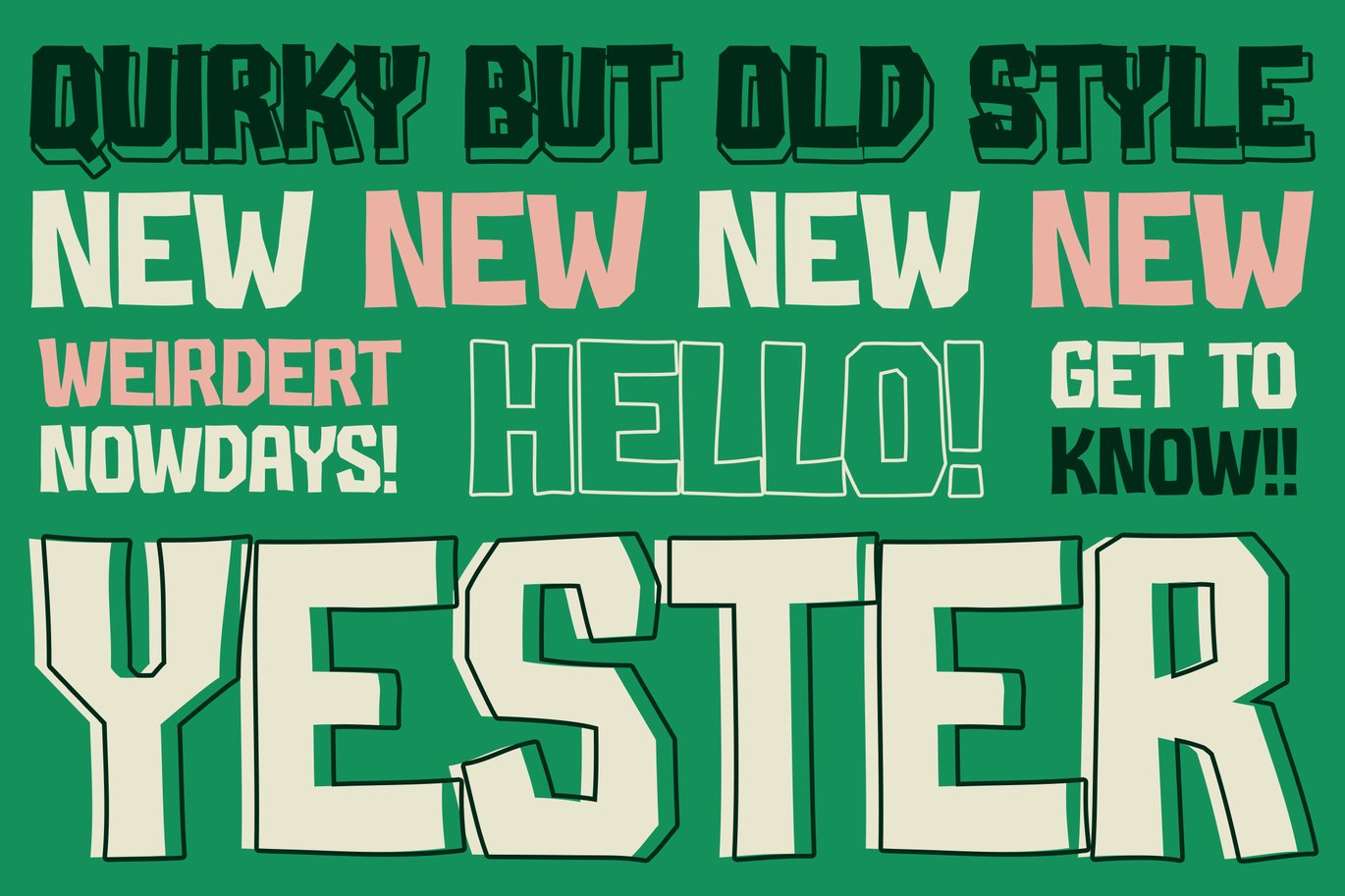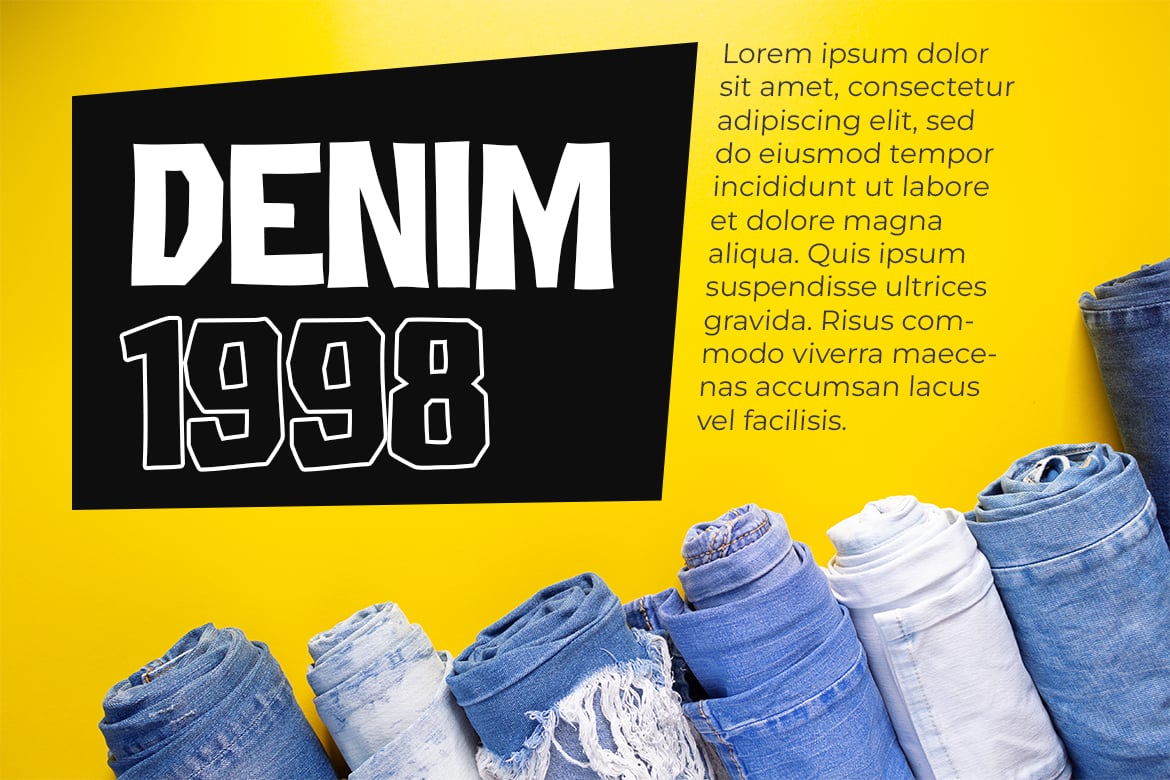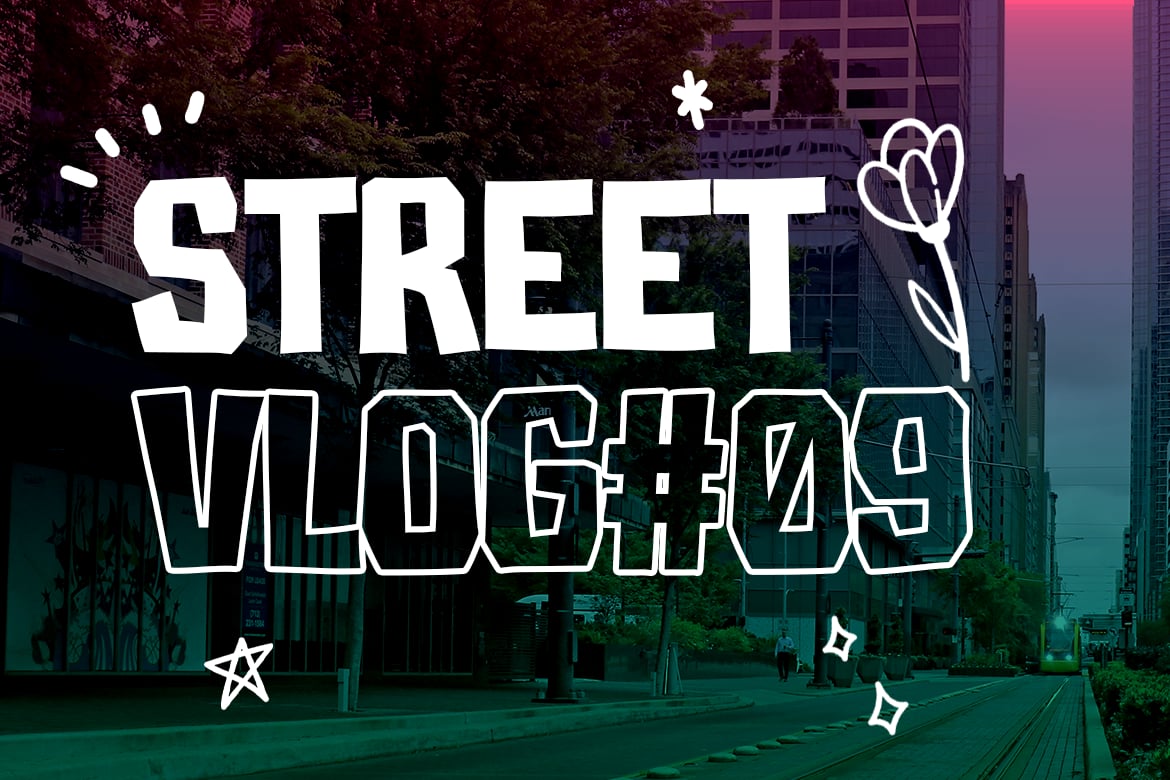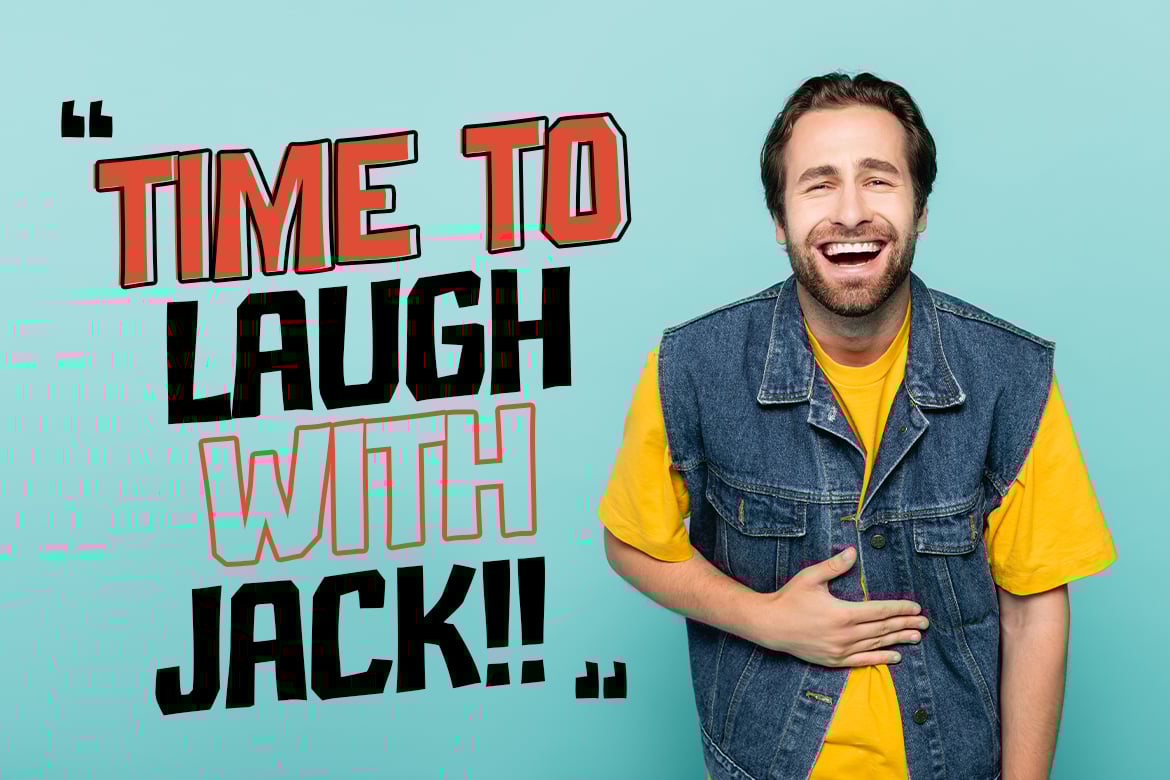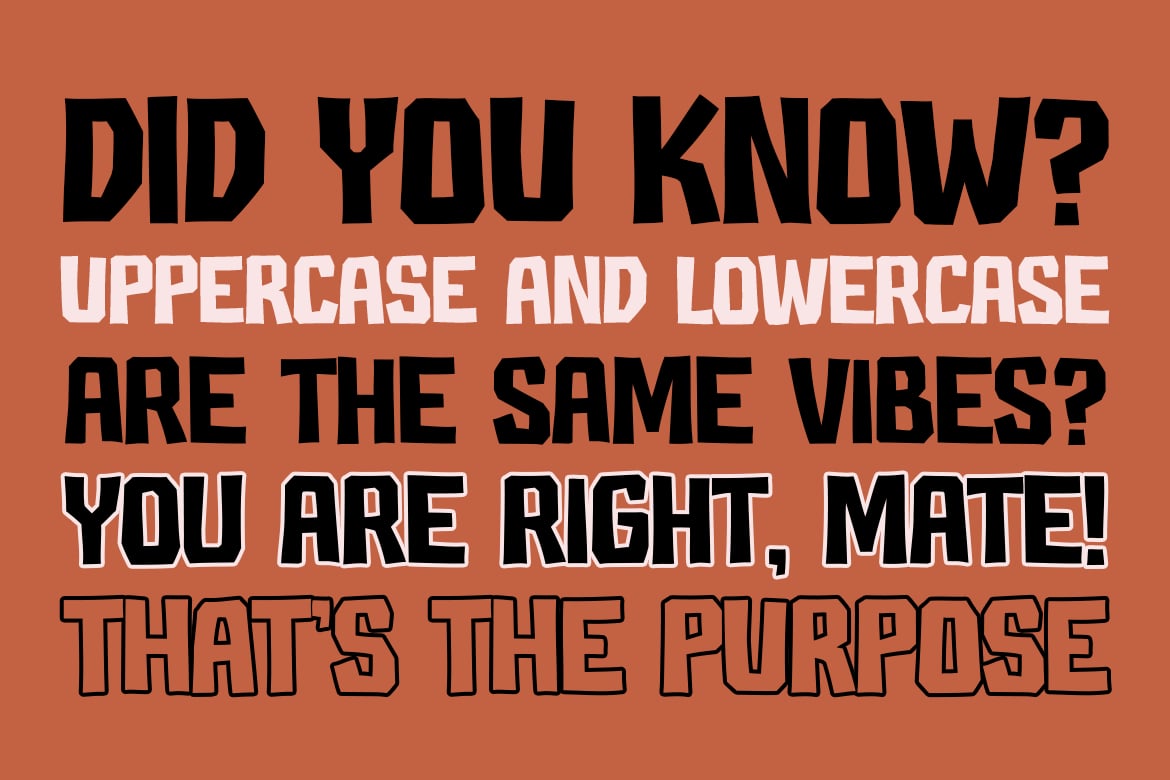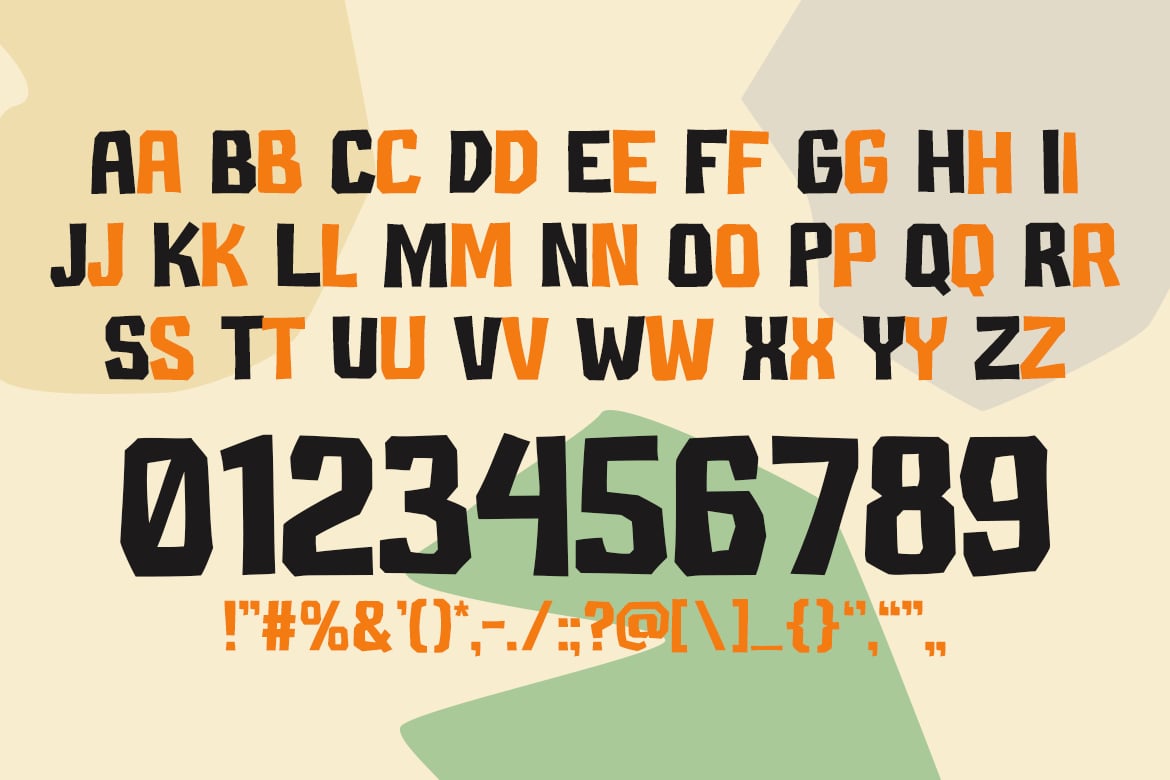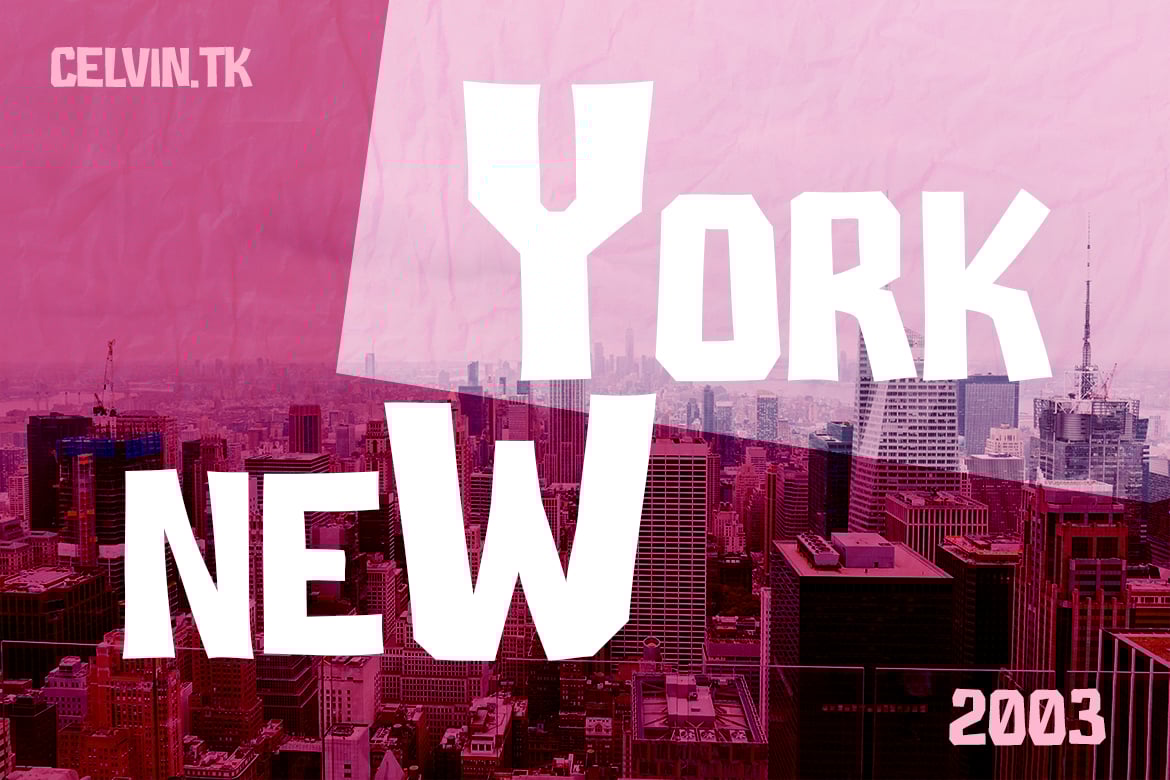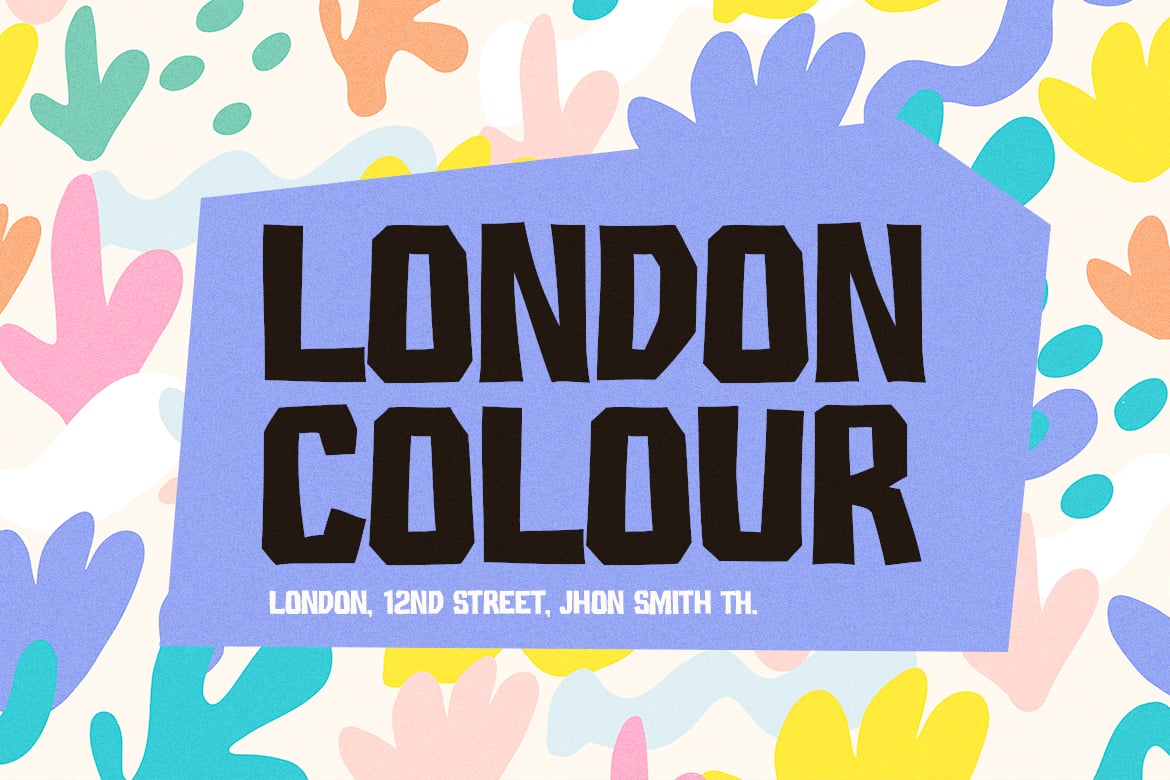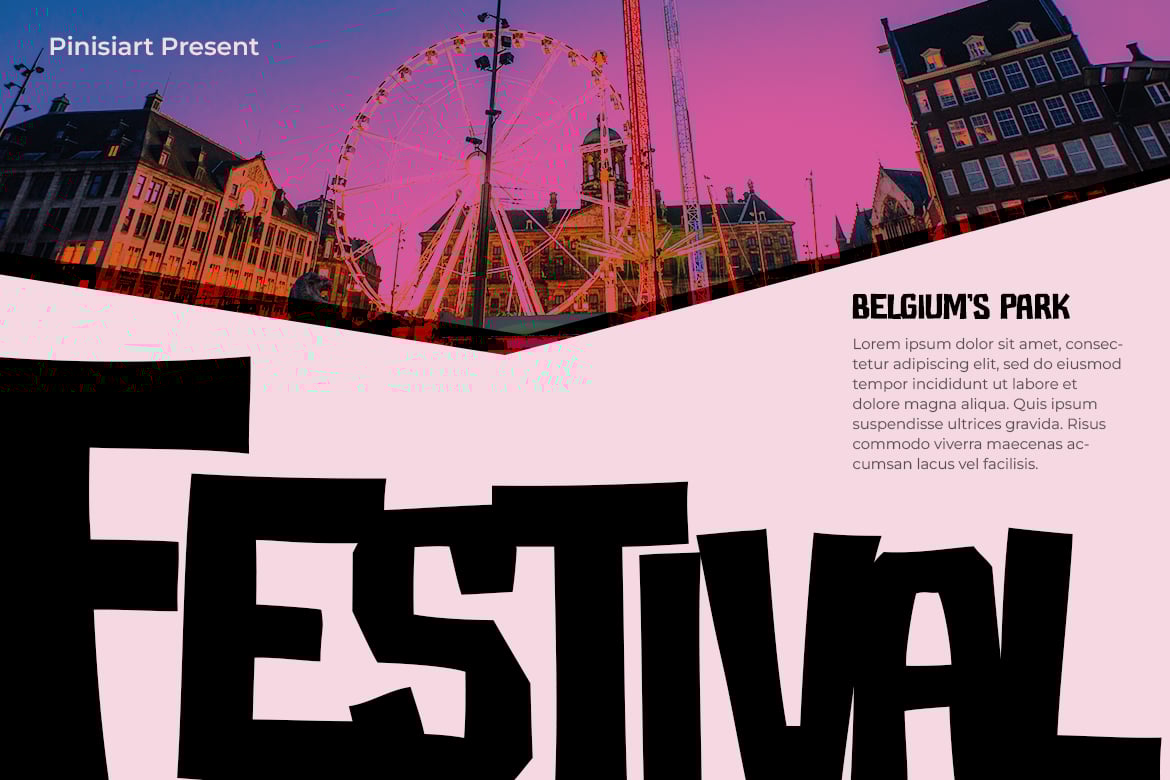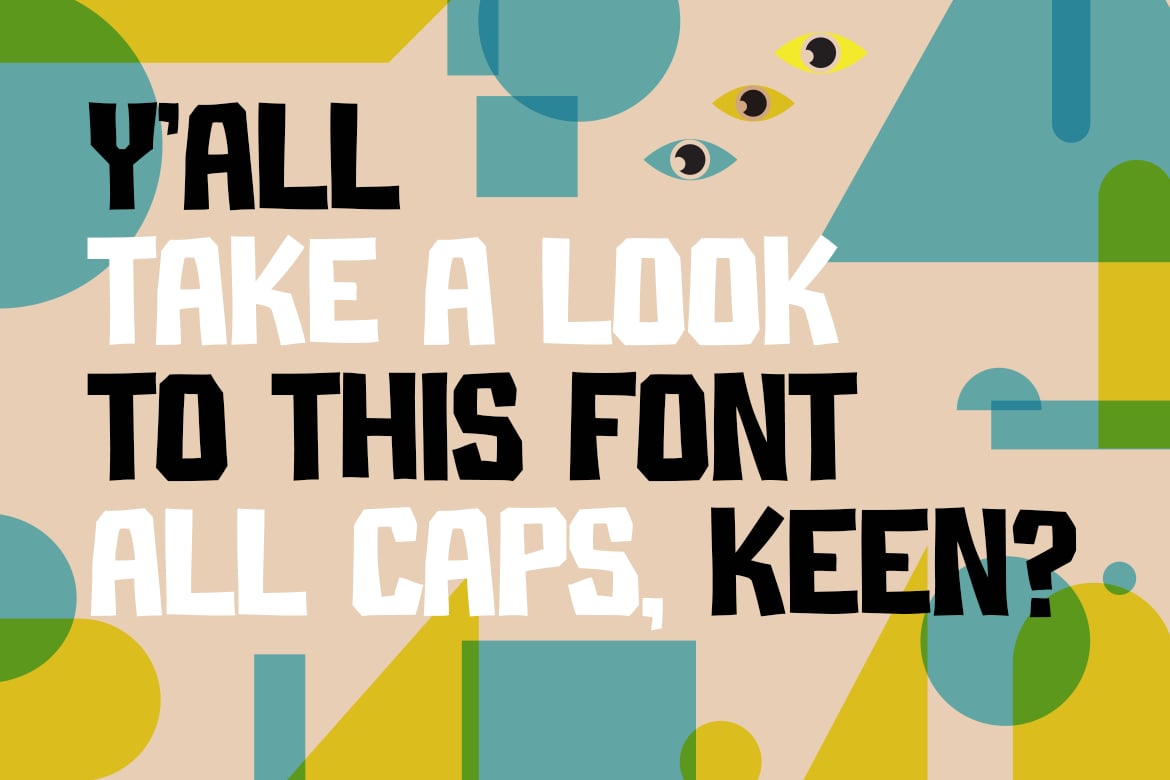
Fun Font – Yester
Yester – A bold, retro-inspired display font with a modern twist, perfect for creating standout designs. Its striking letterforms and playful edges capture the essence of vintage aesthetics, making it ideal for headlines, branding, and creative projects. Whether it’s a retro poster, a nostalgic apparel design, or a bold advertisement, Yester adds a timeless charm to your designs.
Market Applications:
- Retro-themed designs and vintage posters
- Apparel branding and streetwear tags
- Event posters and music album covers
- Social media graphics and digital campaigns
- Signage and vintage-inspired packaging
- Urban-inspired branding and creative merchandise